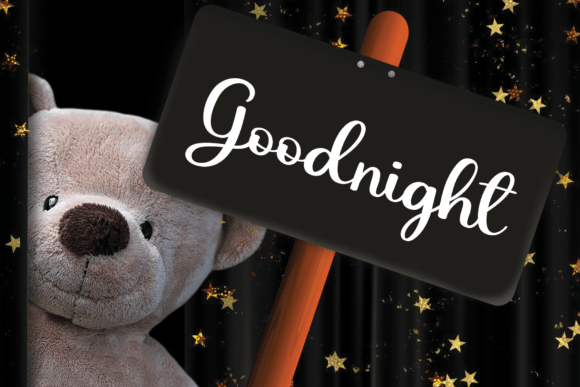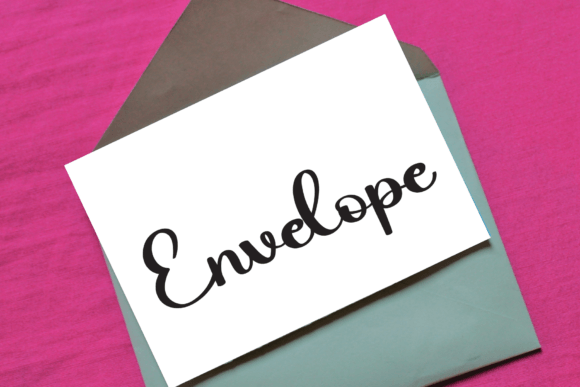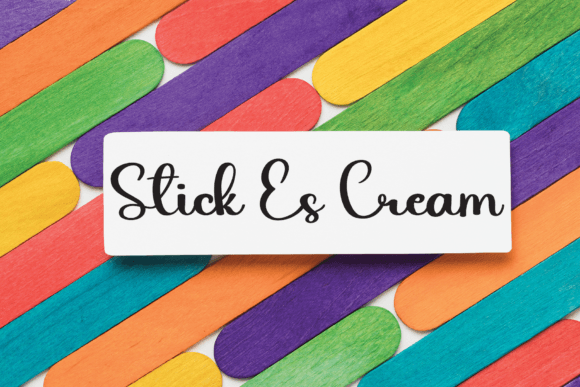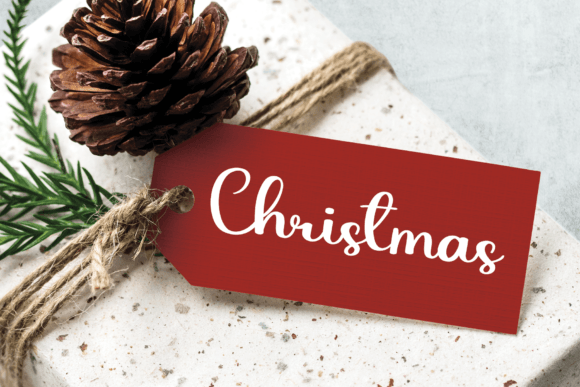
Introducing Black Font: The Sweet and Romantic Script Font
Are you looking for a font that can add a touch of elegance and romance to your designs? Look no further than Black Font, a beautiful script font that features stunning curves in each letter. This sweet and romantic font is perfect for a variety of design projects, from wedding invitations and thank you cards to quotes, greeting cards, logos, and business cards.
What Makes Black Font So Special?
Black Font is a unique and eye-catching script font that is sure to make your designs stand out. Its beautiful curves and flowing lines give it a handwritten feel that is perfect for adding a personal touch to your projects. Whether you’re designing for a special occasion or just want to add some elegance to your everyday designs, Black Font is the perfect choice.
Wedding invitations, save the dates, and thank you cards are just a few examples of designs that can be elevated with Black Font. The font’s romantic and elegant feel makes it perfect for wedding and event designs, and its beautiful curves add a touch of sophistication to any project. You can use Black Font to create stunning wedding stationery, event invitations, and more.
Ideal for Quotes and Greeting Cards
Black Font is also perfect for quotes and greeting cards. The font’s flowing lines and beautiful curves make it easy to read and visually appealing. You can use Black Font to create inspiring quotes, heartfelt greeting cards, and more. Whether you’re designing for a special occasion or just want to add some elegance to your everyday designs, Black Font is the perfect choice.
Great for Logos and Business Cards
Black Font is not just limited to personal projects. It’s also a great choice for logos and business cards. The font’s elegant and sophisticated feel makes it perfect for businesses that want to add a touch of class to their branding. You can use Black Font to create stunning logos, business cards, and more.
Key Features of Black Font
- Beautiful curves: Each letter in Black Font features beautiful curves that give it a handwritten feel.
- Romantic and elegant: Black Font has a romantic and elegant feel that’s perfect for wedding and event designs.
- Easy to read: Despite its elegant feel, Black Font is easy to read and visually appealing.
- Versatile: Black Font can be used for a variety of design projects, from personal to commercial.
Tips for Using Black Font
Here are a few tips for using Black Font in your designs:
- Pair it with a simple font: Black Font is a statement font, so pair it with a simple font to create contrast.
- Use it for headings: Black Font is perfect for headings and titles, so use it to add a touch of elegance to your designs.
- Experiment with colors: Black Font looks great in a variety of colors, so experiment with different colors to find the one that works best for your design.
Black Font is a beautiful script font that is perfect for designers and crafters who want to add a touch of elegance and romance to their designs. With its stunning curves and flowing lines, Black Font is sure to make your designs stand out. Whether you’re designing for a special occasion or just want to add some elegance to your everyday designs, Black Font is the perfect choice.